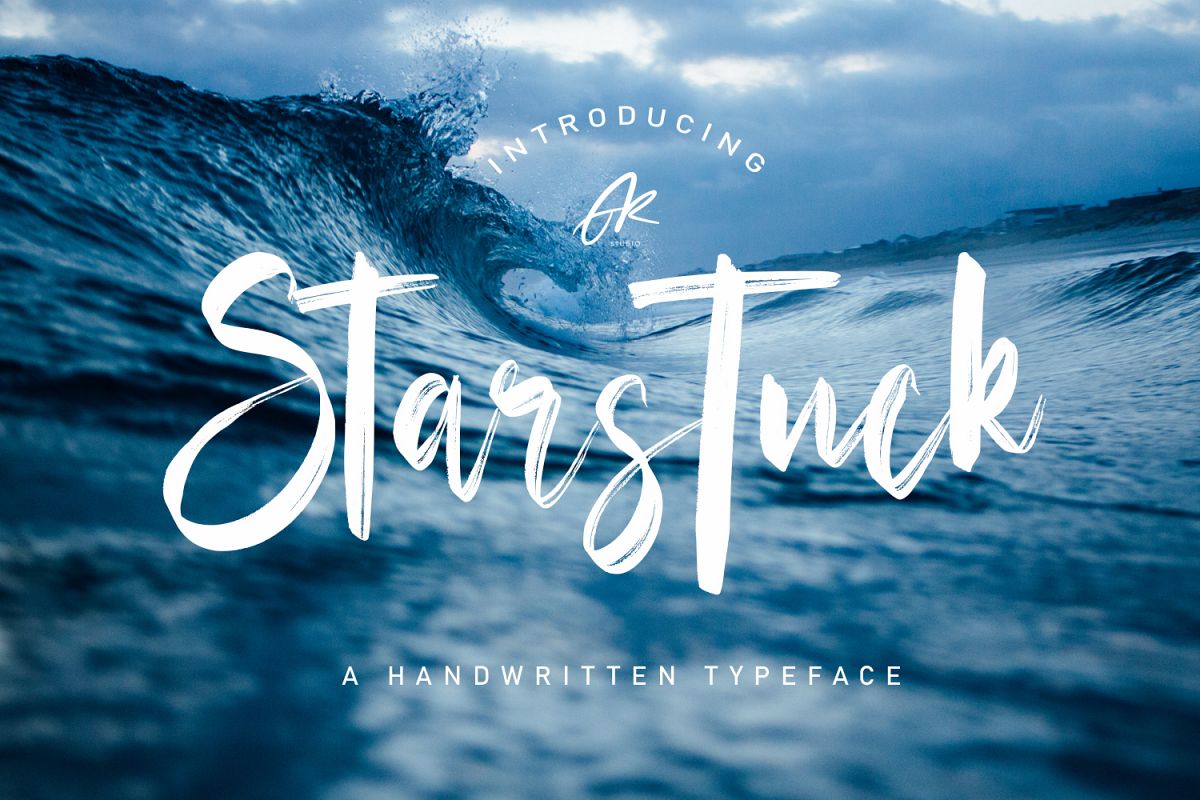
Starstuck Handwritten Font
Starstuck
Starstuck Alt
Starstuck Handwritten Typeface is a font with distinctive handwritten characters perfect for branding projects, logos, wedding designs, media posts, advertisements, product packaging, product designs, labels, photography, watermarks, invitations, stationery, and any project who need handwritten dishes.